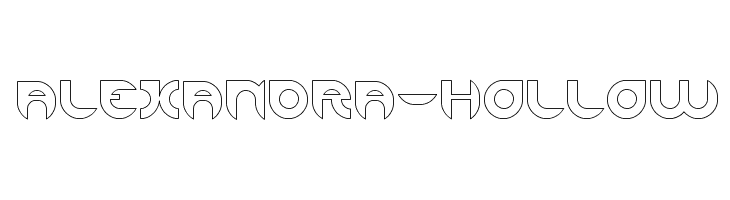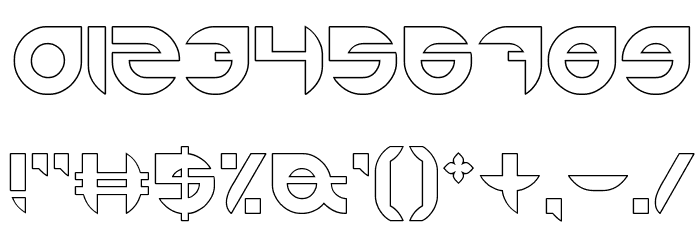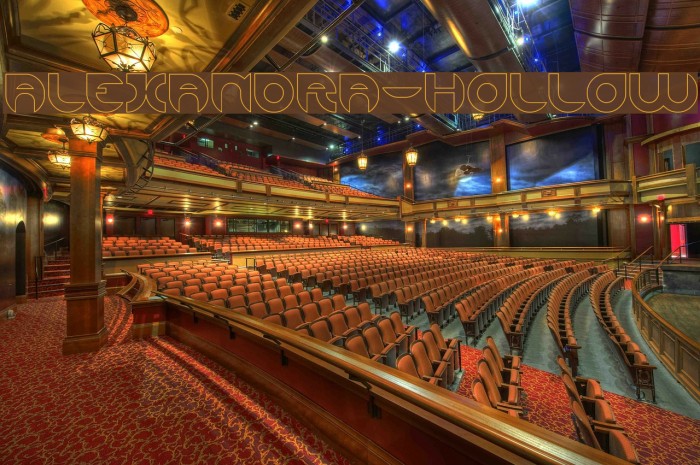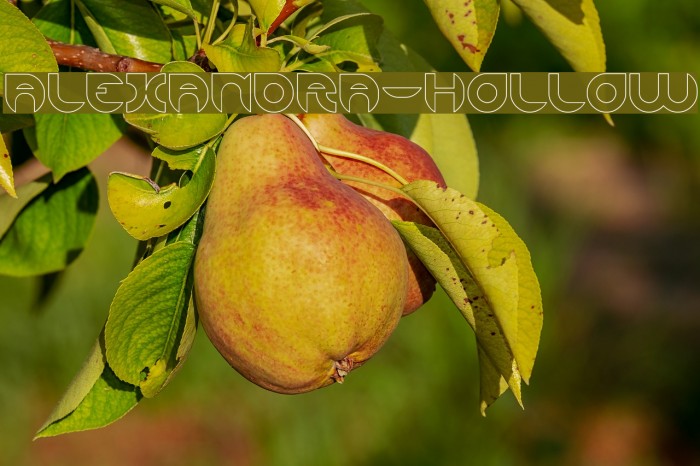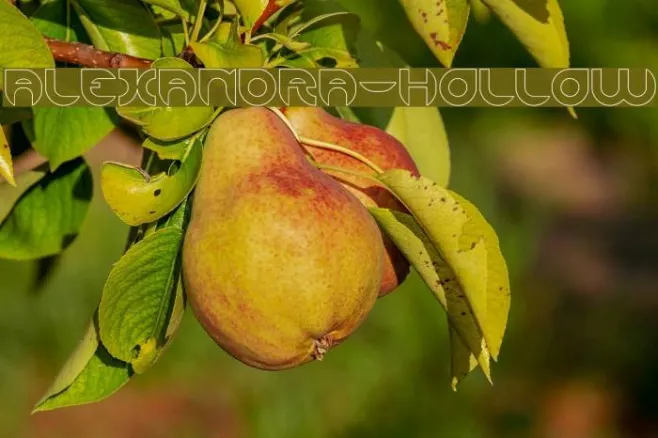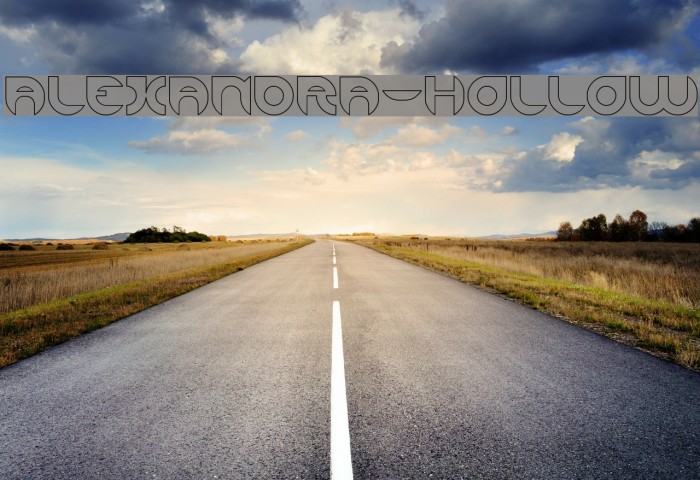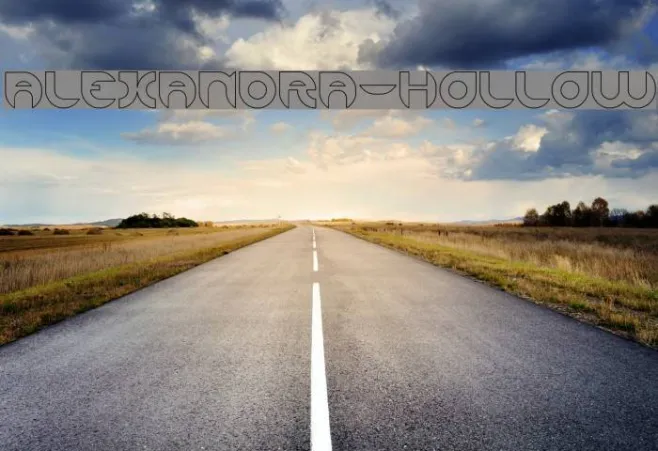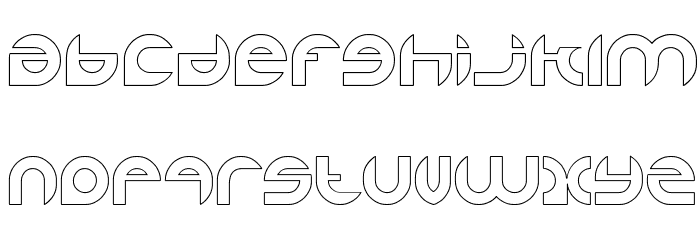
ALEXANDRA-HOLLOW Font
ALEXANDRA-HOLLOW Description
This font features a hollow, geometric design with a futuristic and modern aesthetic. The characters are constructed with clean, sharp lines and open spaces, creating a sense of lightness and transparency. The uppercase and lowercase letters maintain a consistent style, with angular edges and a uniform stroke width. Numbers and special characters follow the same design principles, ensuring a cohesive look across all elements. The font's unique style makes it stand out, offering a visually striking appearance that is both bold and elegant.
| Use Case | Logos, Headlines, Posters |
| Proposed Projects | Ideal for sci-fi themed projects, modern branding, digital artwork, and innovative product packaging. |